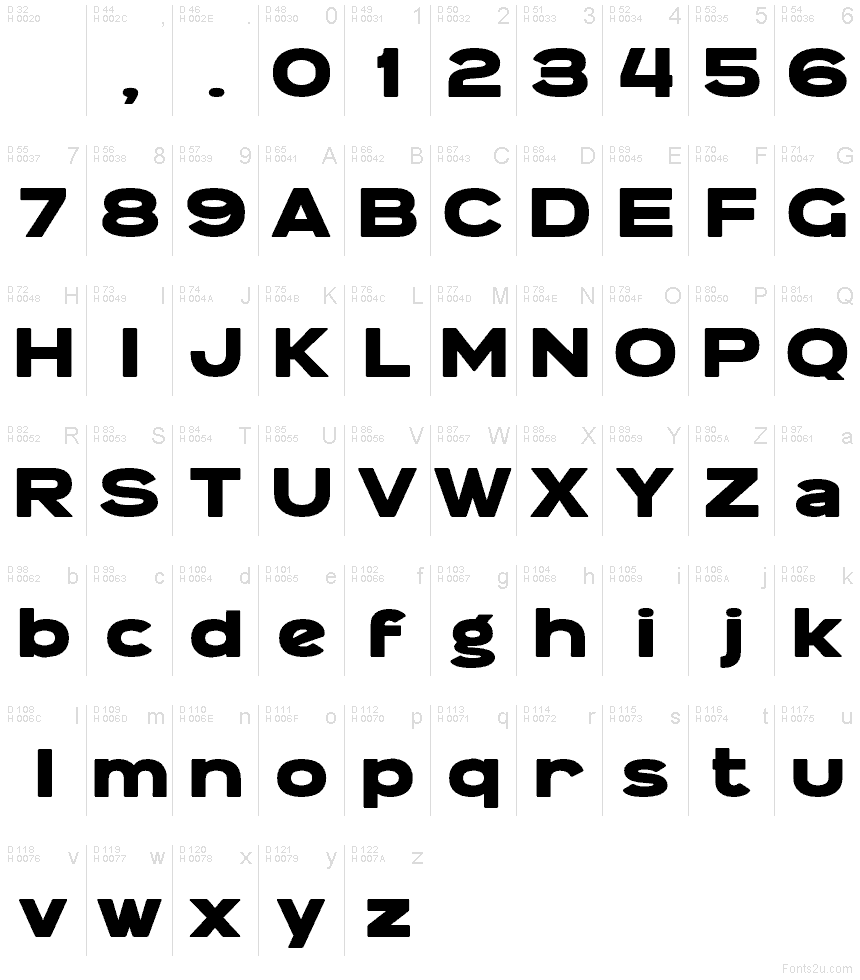
Hypebuzz font by Ikiiko Type is a bold expanded sans serif font. Its modern appearance with a clean structure that shows geometric shapes offers neat letterform designs and outlines. With minimalistic elements that give off a contemporary style, this font has all the right factors to communicate strength, presence, and even elegance.
Although free, Hypebuzz can work wonders on company logos and branding designs. It will also be useful in advertisement projects and packaging within various industries like clothing or beauty products among others.